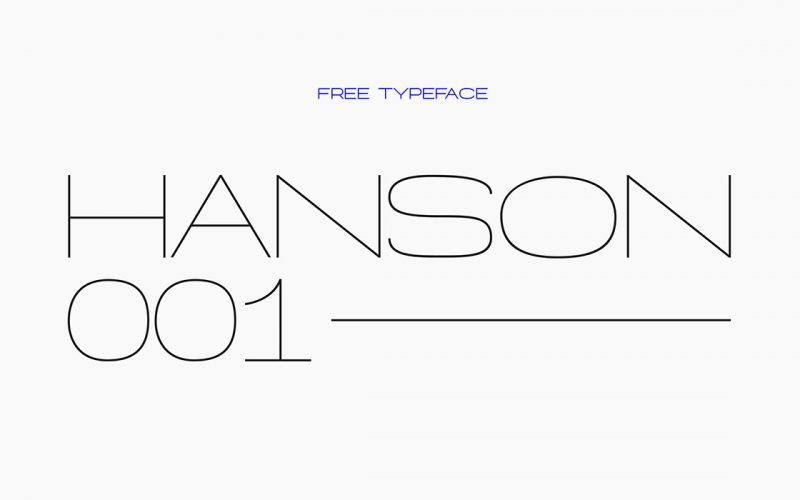
Hanson Hairline Free Font
Thank you for looking this font. Introducing Hanson Font! This is an elegant, extended font which is currently the only one within its typeface. Perfect when used for displaying, website, branding, logos, magazines, posters, films, different shapes give you full reach to explore a number of applications, while the fonts described giving a real modern feel to any project.